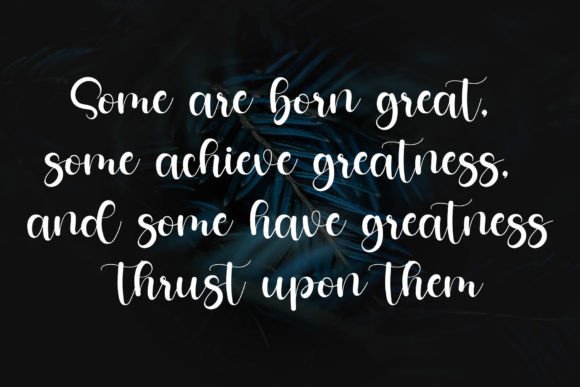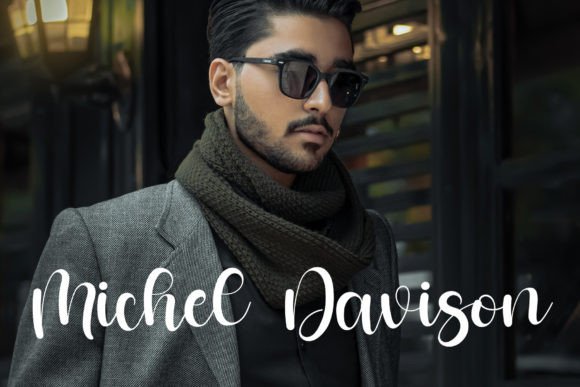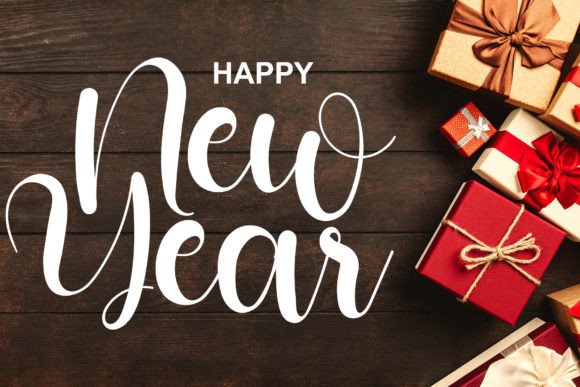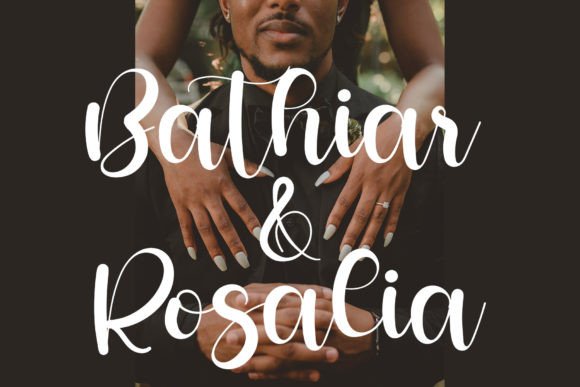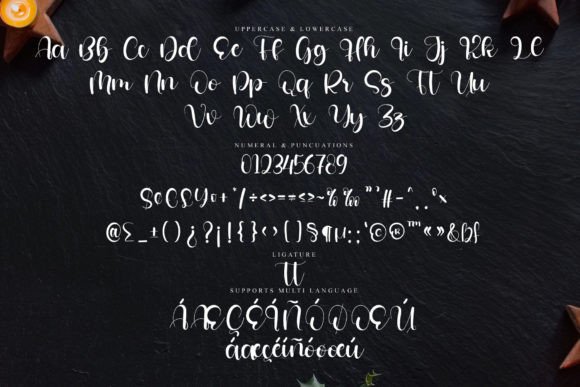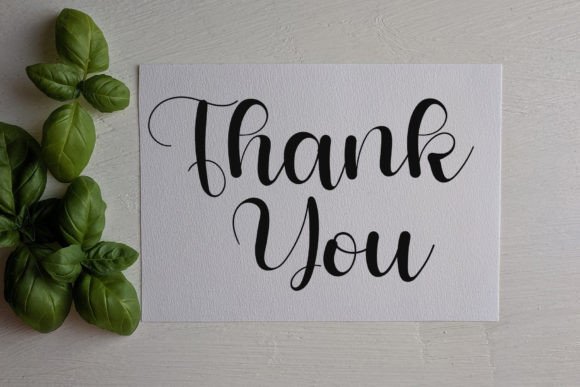
Discover the Charm of Betimes Font: Elevate Your Designs with Elegance
Are you a designer or crafter looking for a font that exudes charm and elegance? Look no further than Betimes Font. This beautiful handwritten font is perfect for adding a touch of sophistication to your designs, making it ideal for wedding invitations, thank you cards, quotes, greeting cards, logos, business cards, and more.
The Unique Characteristics of Betimes Font
Betimes Font is a carefully crafted font that boasts a unique blend of classic and modern elements. Its elegant strokes, precise lettering, and flowing connections make it a standout in the world of typography. The font’s charm lies in its ability to evoke a sense of nostalgia and romance, making it perfect for designs that require a personal touch.
What Makes Betimes Font So Versatile?
One of the key benefits of Betimes Font is its versatility. Whether you’re designing a wedding invitation, a business card, or a social media graphic, this font can adapt to any style or theme. Its elegant and refined appearance makes it suitable for a wide range of applications, from formal events to everyday designs.
Betimes Font is a popular choice for wedding designs, and for good reason. Its romantic and whimsical feel makes it perfect for wedding invitations, save-the-date cards, and other event-related materials. The font’s elegant appearance also makes it suitable for other formal events, such as baby showers, anniversaries, and graduations.
Add a Personal Touch to Your Designs
Betimes Font is not just a font – it’s a way to add a personal touch to your designs. Its handwritten appearance gives your work a unique and human feel, making it perfect for designs that require a personal touch. Whether you’re creating a logo, a business card, or a social media graphic, Betimes Font can help you connect with your audience on a more personal level.
Why Designers and Crafters Love Betimes Font
Designers and crafters love Betimes Font for its unique combination of elegance and charm. The font’s versatility, legibility, and aesthetic appeal make it a valuable addition to any design project. Here are just a few reasons why Betimes Font has become a favorite among designers and crafters:
- Elegance and sophistication: Betimes Font adds a touch of elegance and sophistication to any design.
- Versatility: The font is suitable for a wide range of applications, from formal events to everyday designs.
- Legibility: Betimes Font is easy to read, making it perfect for designs that require a clear and concise message.
- Aesthetic appeal: The font’s unique appearance makes it a standout in the world of typography.
Tips for Using Betimes Font in Your Designs
Here are a few tips for using Betimes Font in your designs:
- Pair it with other fonts: Betimes Font pairs well with other fonts, such as serif and sans-serif fonts.
- Use it for headings and titles: The font’s elegant appearance makes it perfect for headings and titles.
- Add a personal touch: Use Betimes Font to add a personal touch to your designs, making them more relatable and engaging.
Betimes Font is a beautiful and elegant font that can elevate your designs to the next level. Its unique combination of classic and modern elements makes it perfect for a wide range of applications, from wedding invitations to business cards. Whether you’re a designer or crafter, Betimes Font is a valuable addition to your toolkit.